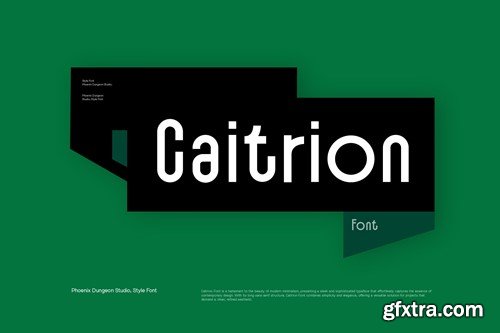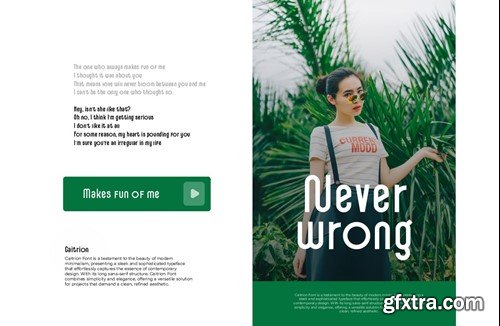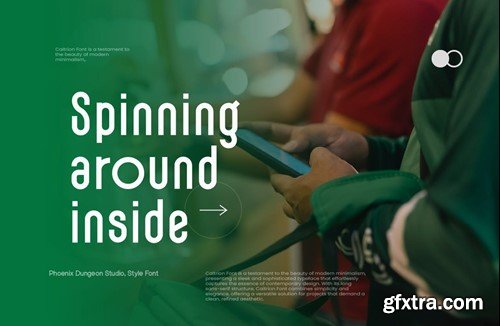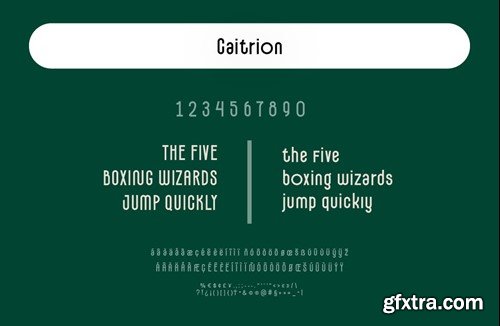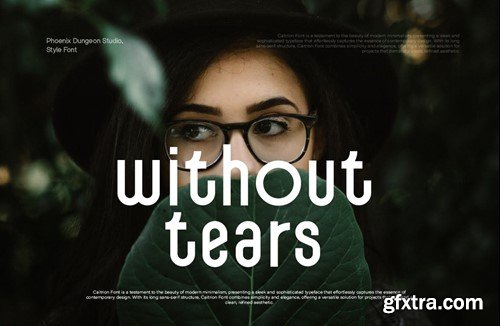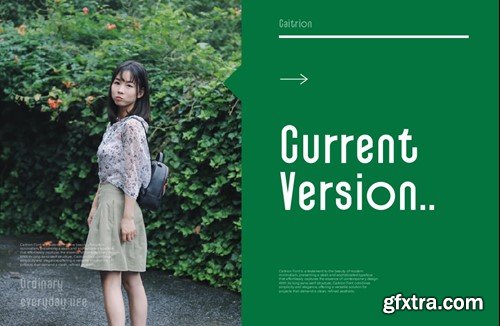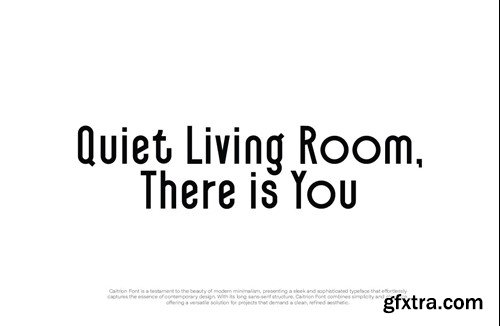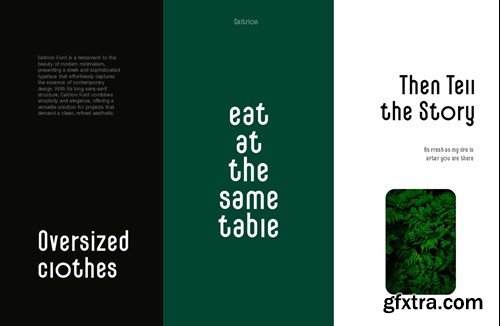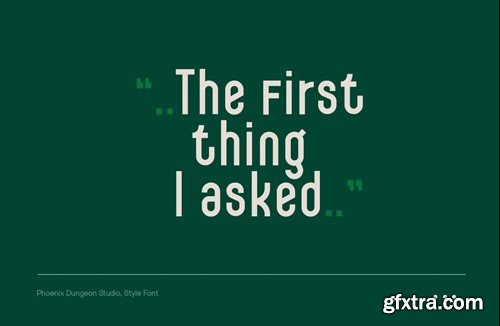
Caitrion Font Z3B5QA9
Caitrion Font
Caitrion Font is a testament to the beauty of modern minimalism, presenting a sleek and sophisticated typeface that effortlessly captures the essence of contemporary design. With its long sans-serif structure, Caitrion Font combines simplicity and elegance, offering a versatile solution for projects that demand a clean, refined aesthetic. What’s in the package : Thank you